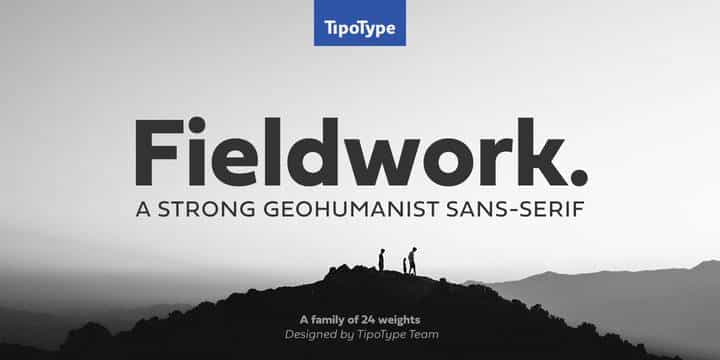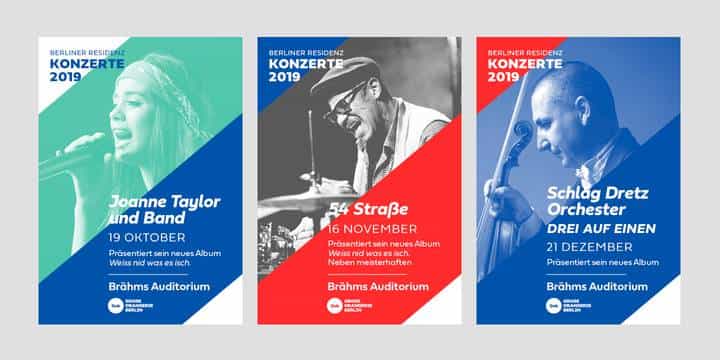
Hello Everyone! Today we bring you Fieldwork Typeface; a set of sans Serif typefaces that brings back some of the traditional ways of typographic manufacturing without using lab techniques. All 24 variations were drawn with the help of optical analysis. Each weight modification was done on the curves and features and then reshaped to comply with specifications of the different stroke weights.